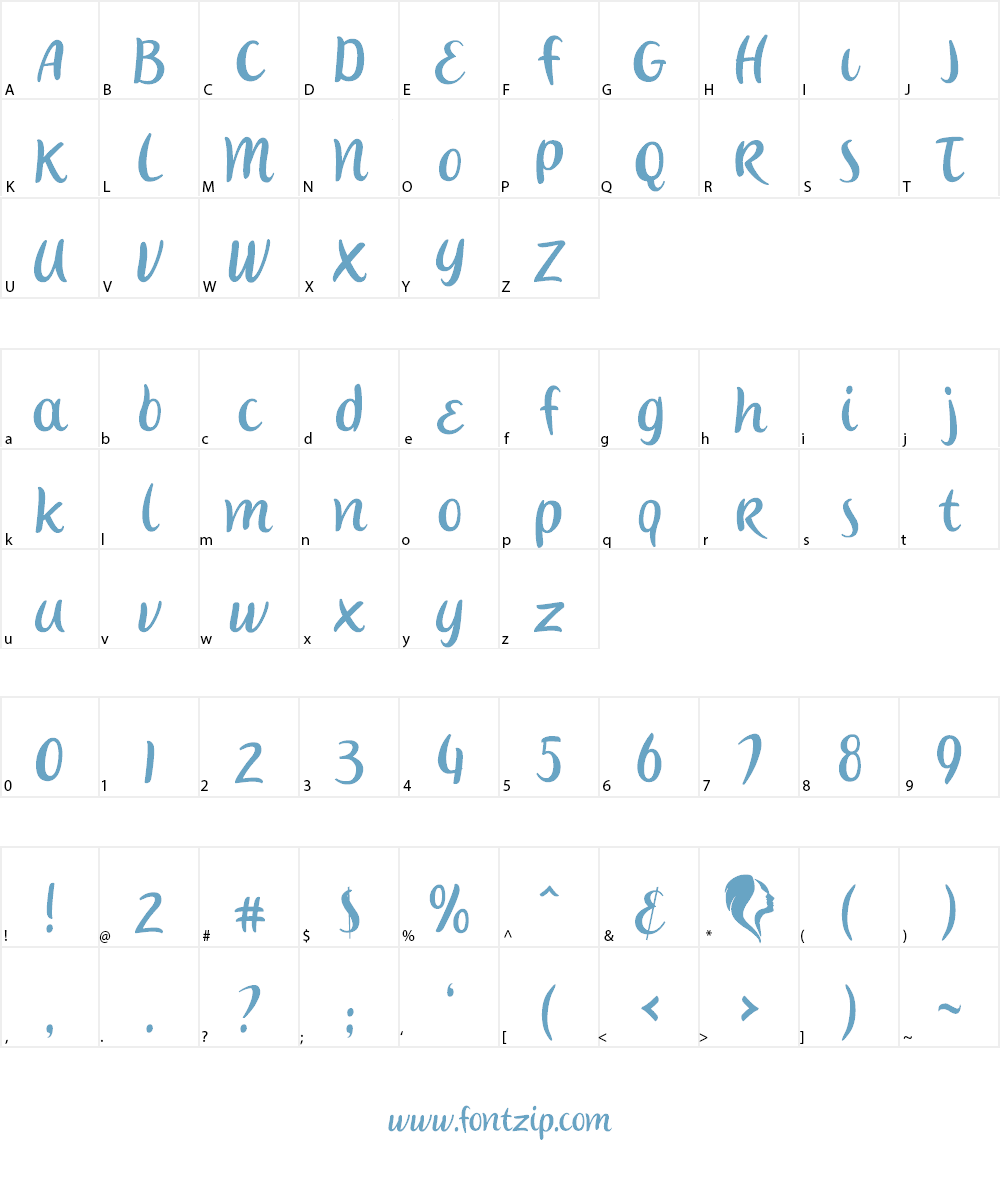
I just discovered a logo, and its thing is starting in July 2017 or something.
So I decided I make a font out of that logo. I hope you Eurovision people are going to use this for Eurovision stuff or something like that.